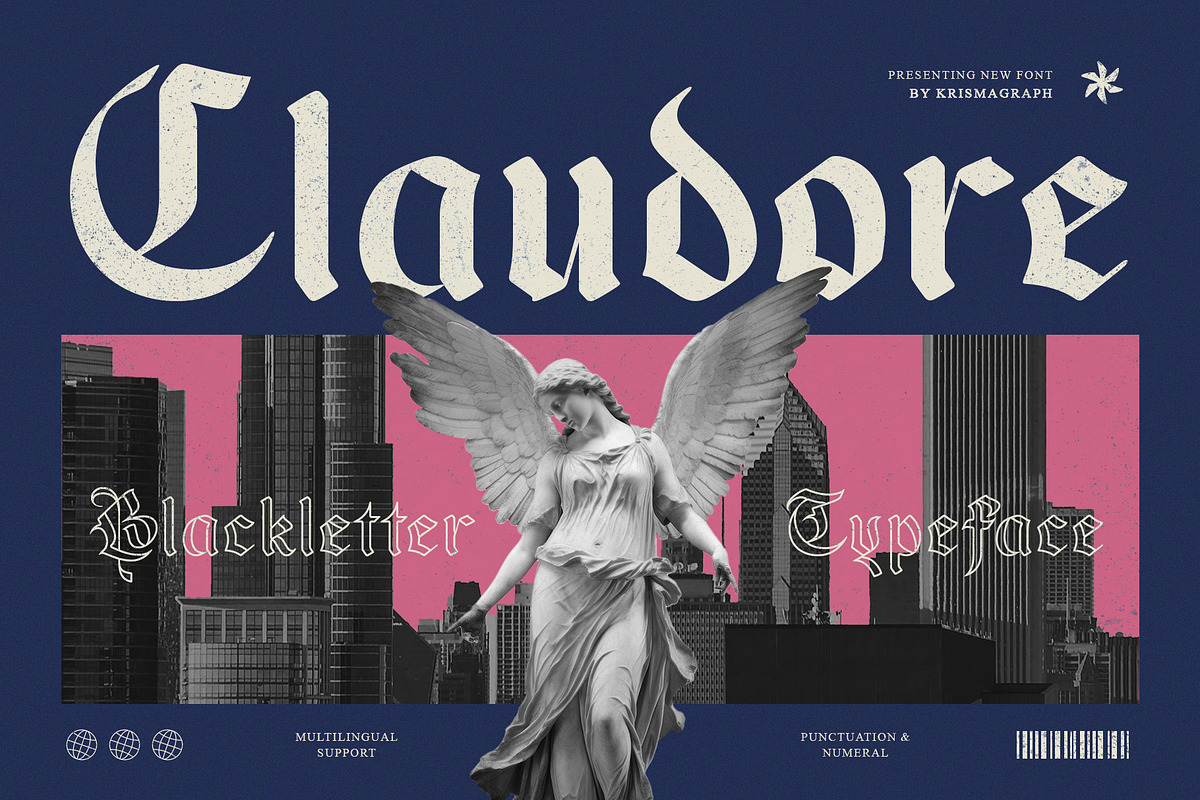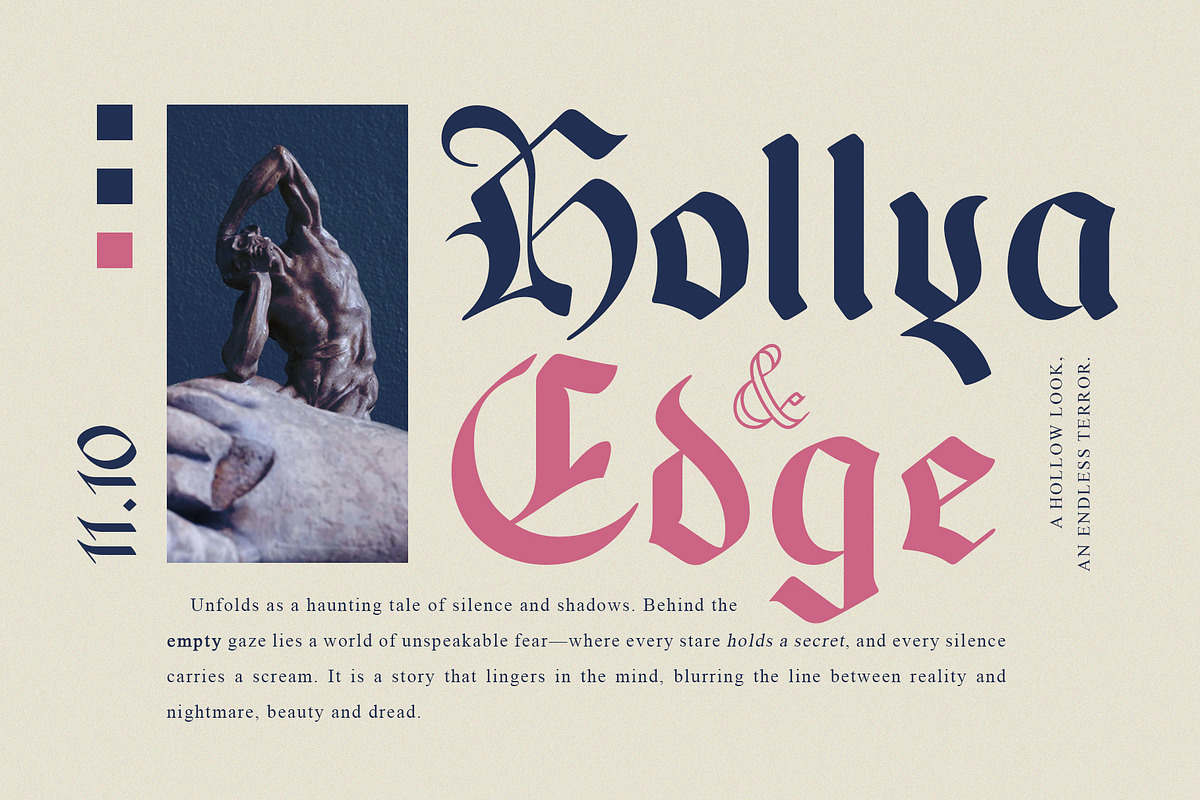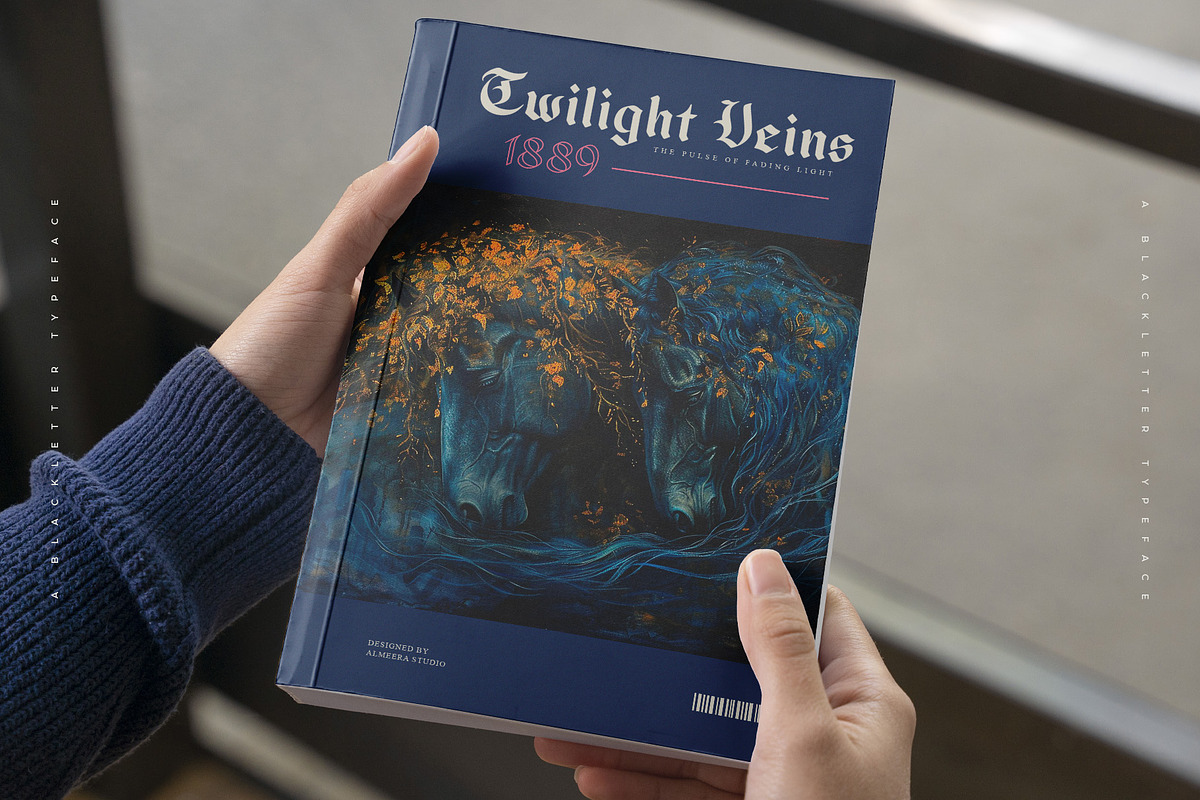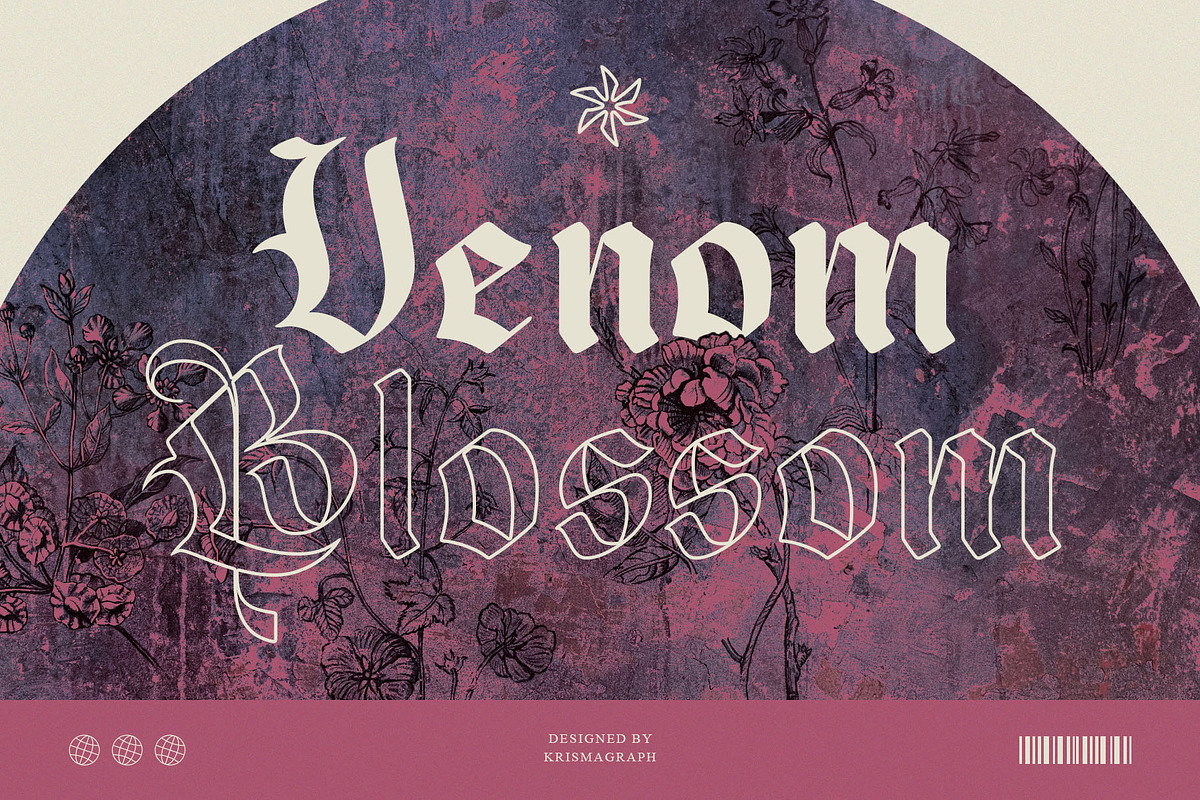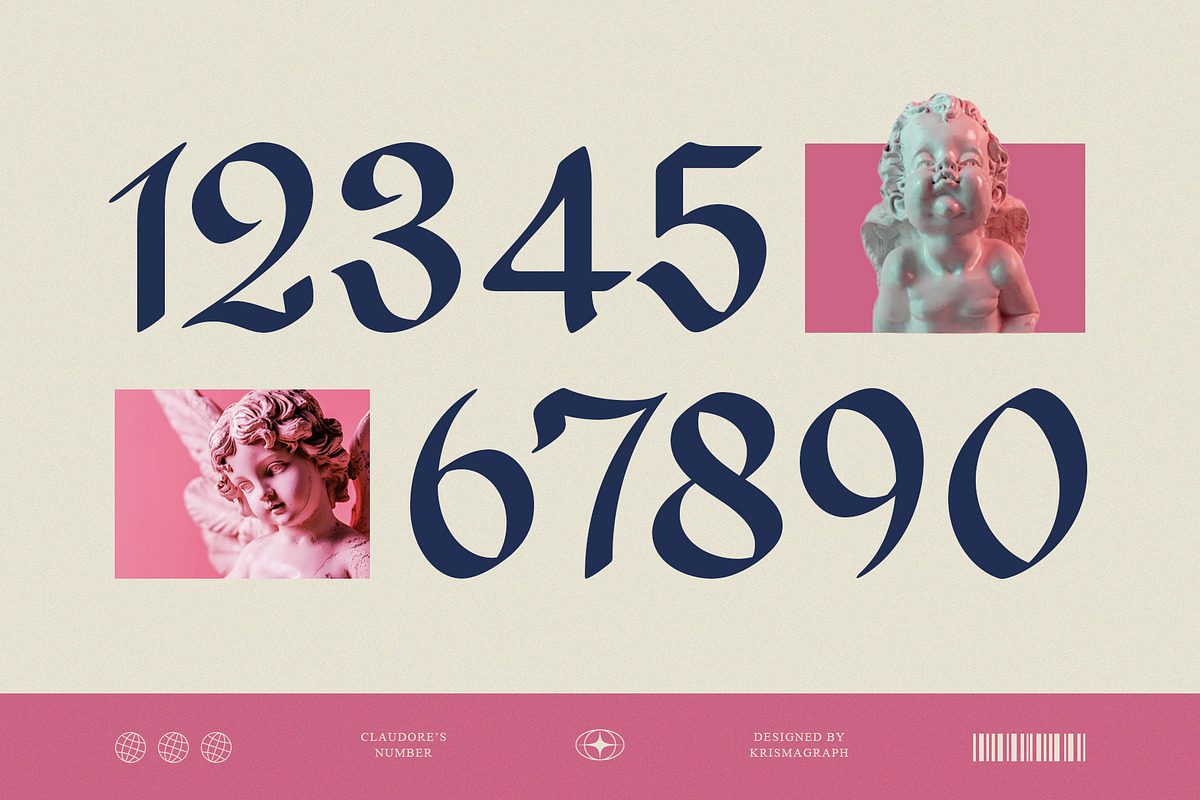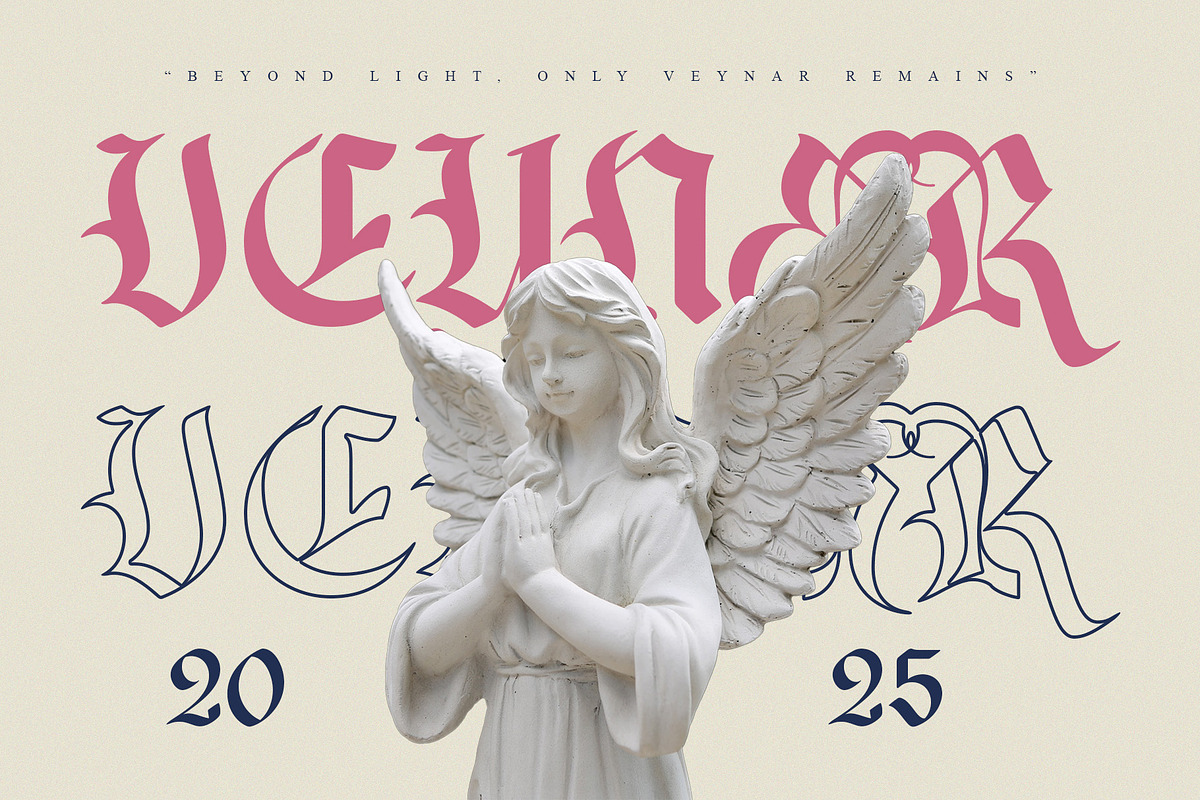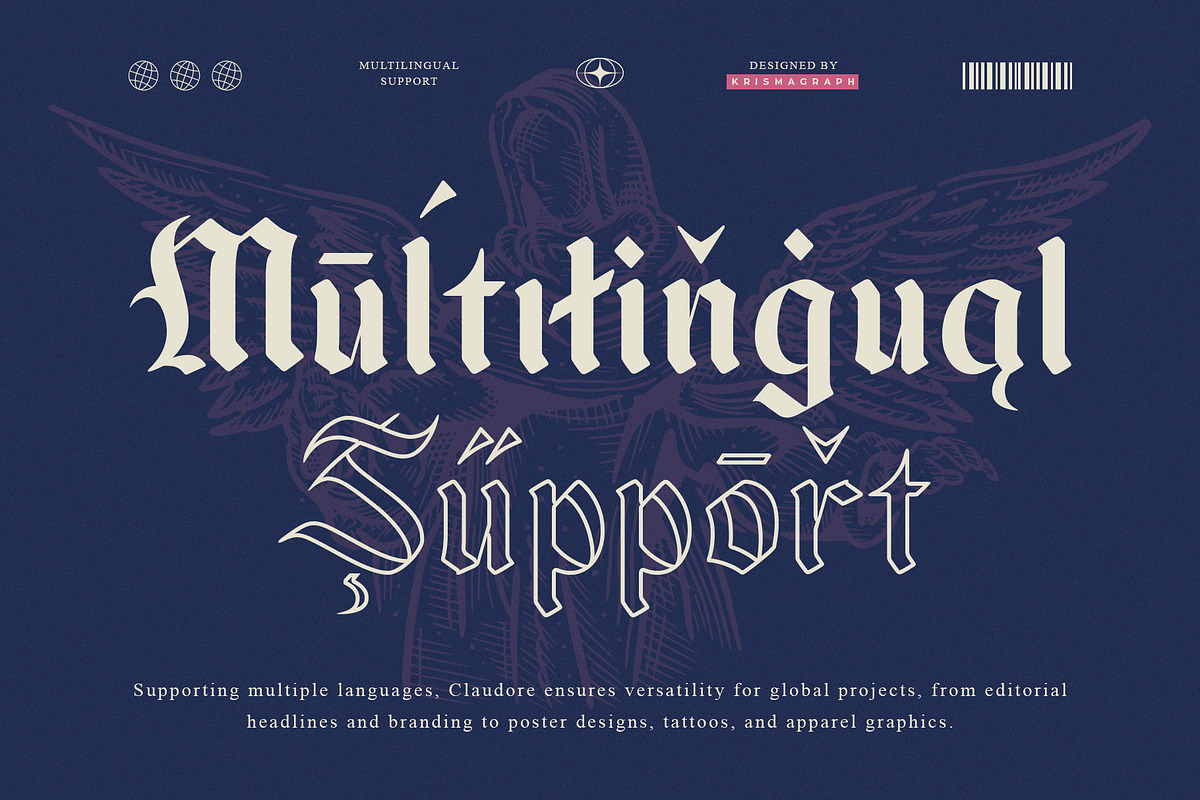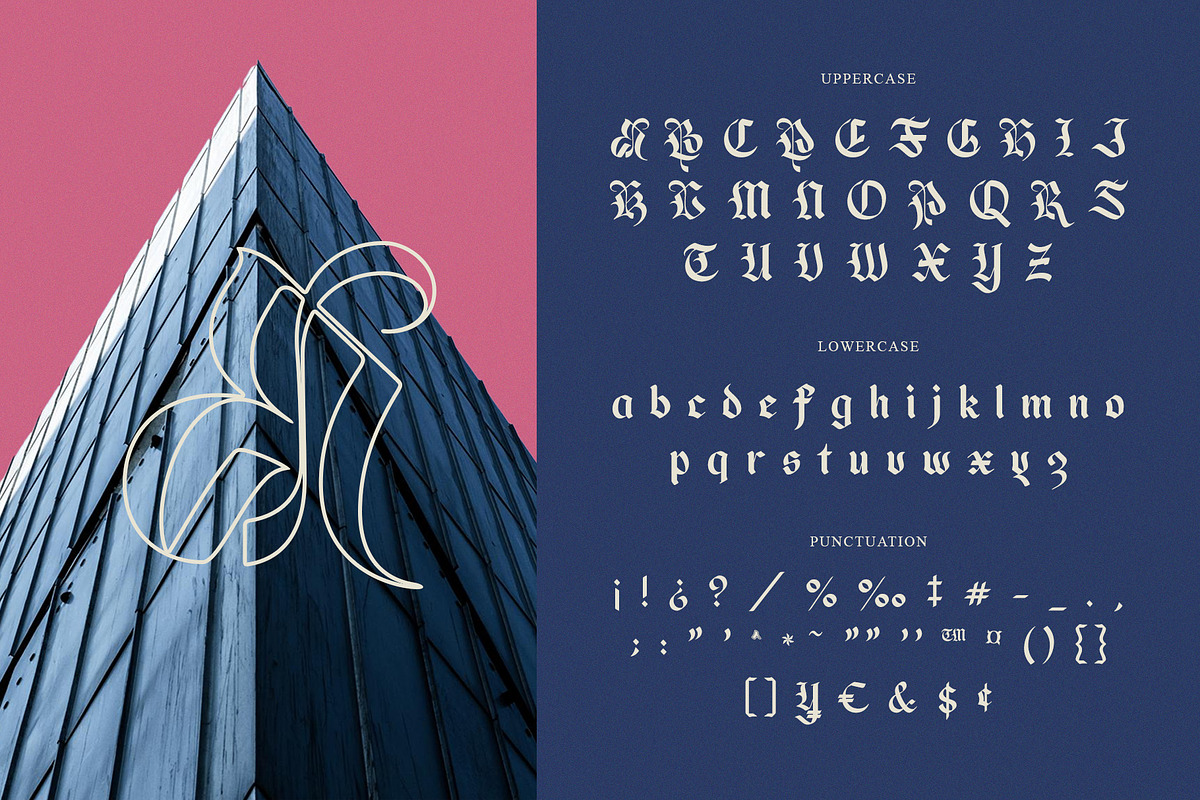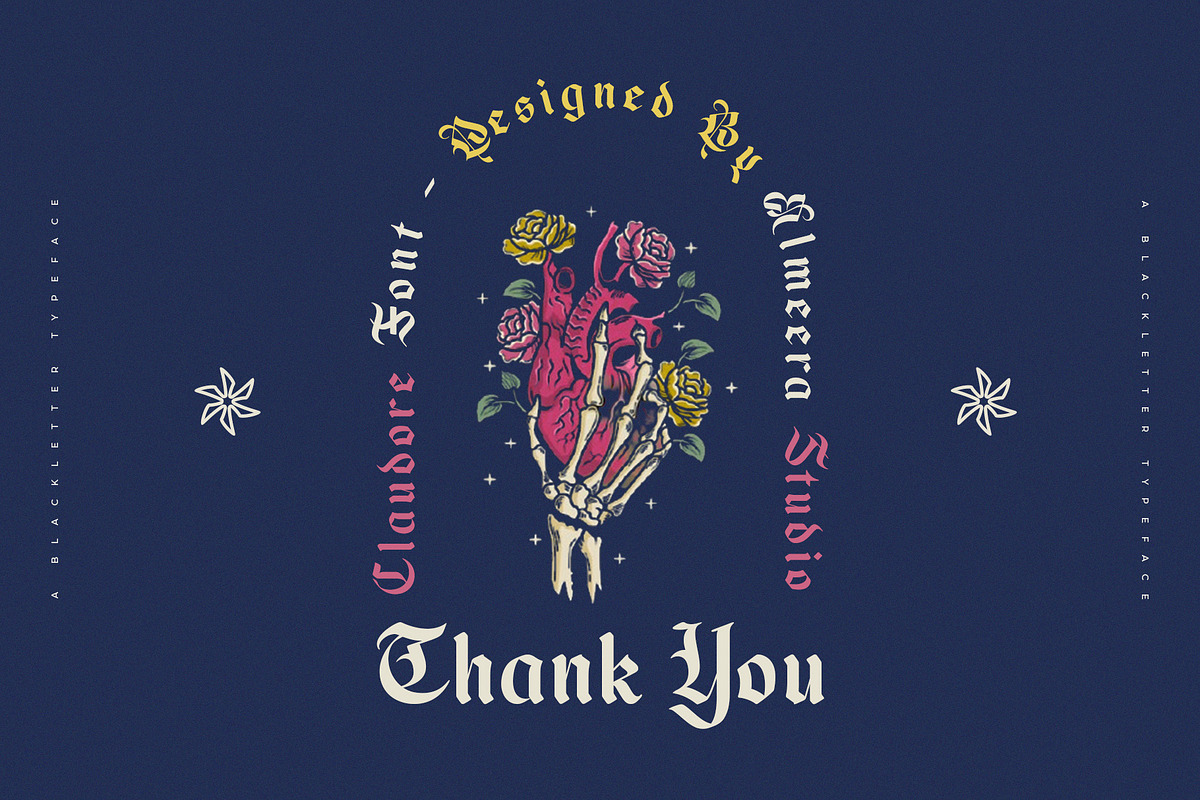
Claudore – Blackletter Typeface
Claudore is a refined take on classic blackletter style, crafted for designers who want elegance with a rebellious edge. With textured details and balanced proportions, it strikes the perfect harmony between heritage-inspired calligraphy and modern design needs. Perfect for branding, packaging, music artwork, book covers, and fashion campaigns, Claudore comes with multilingual support and complete punctuation. A timeless typeface that elevates any design with bold personality and style.
- Elegant yet rebellious blackletter design
- Authentic textured details for a vintage look
- Perfect for branding, packaging, music artwork, fashion projects
- Includes punctuation & numerals
- Multilingual support for international use